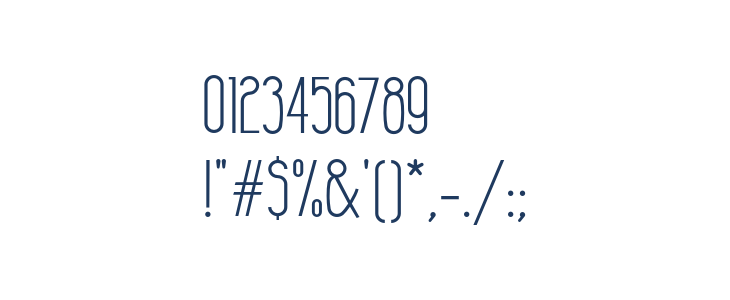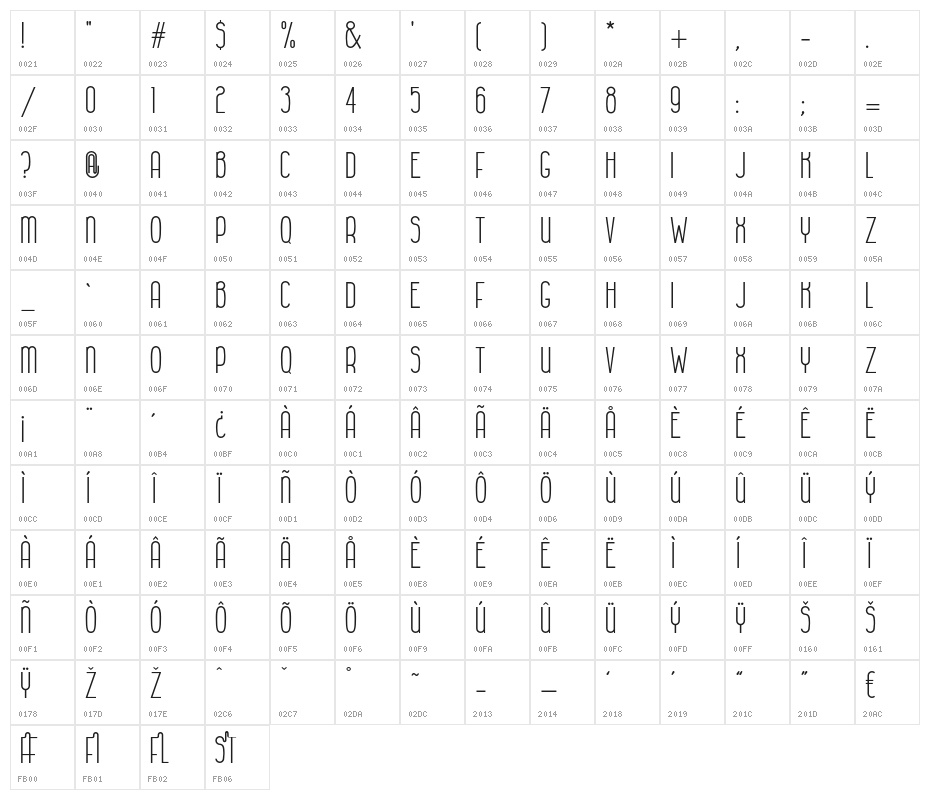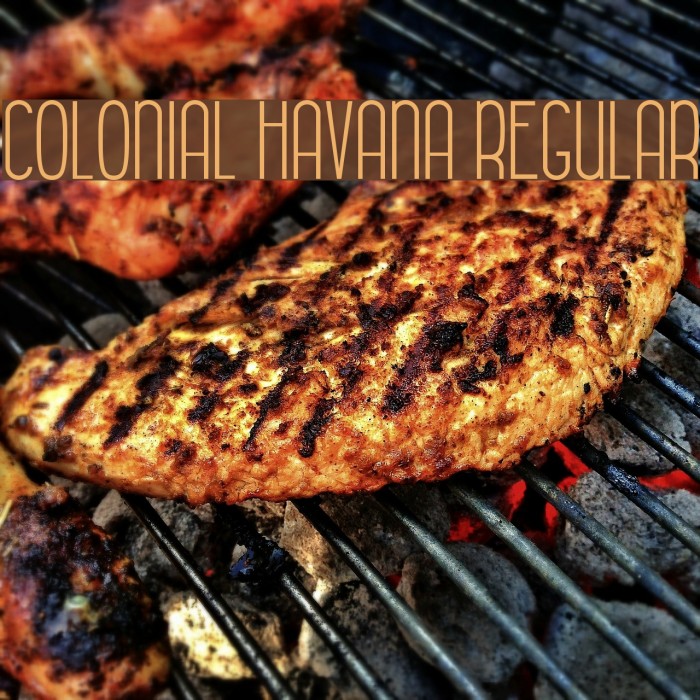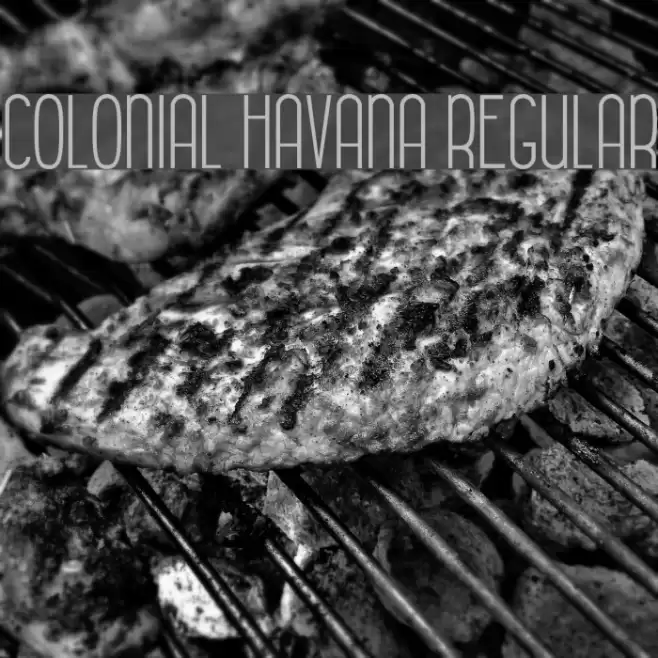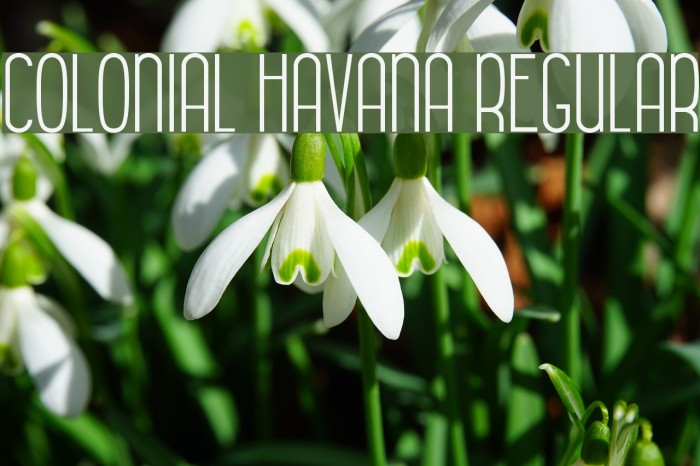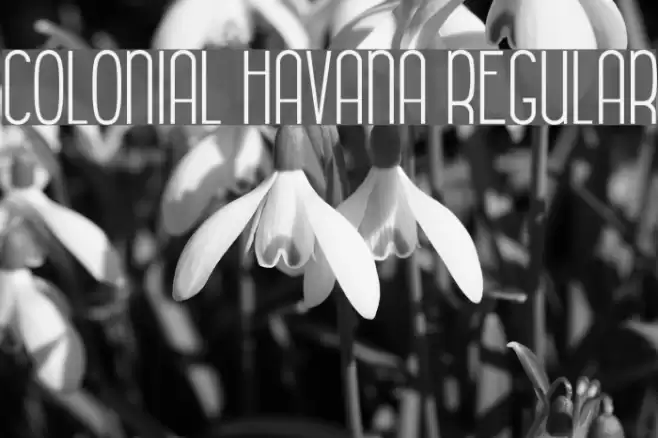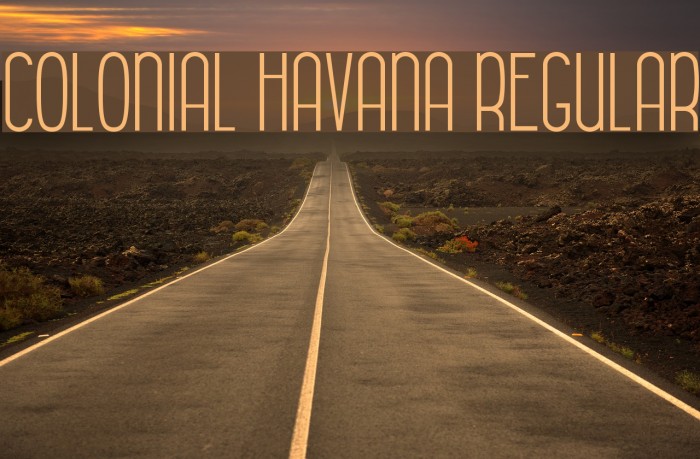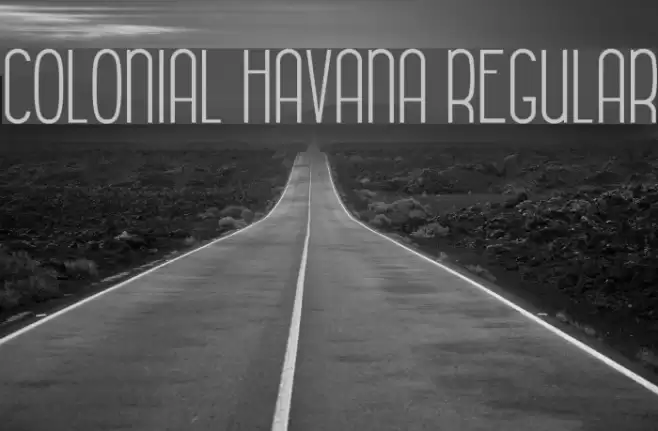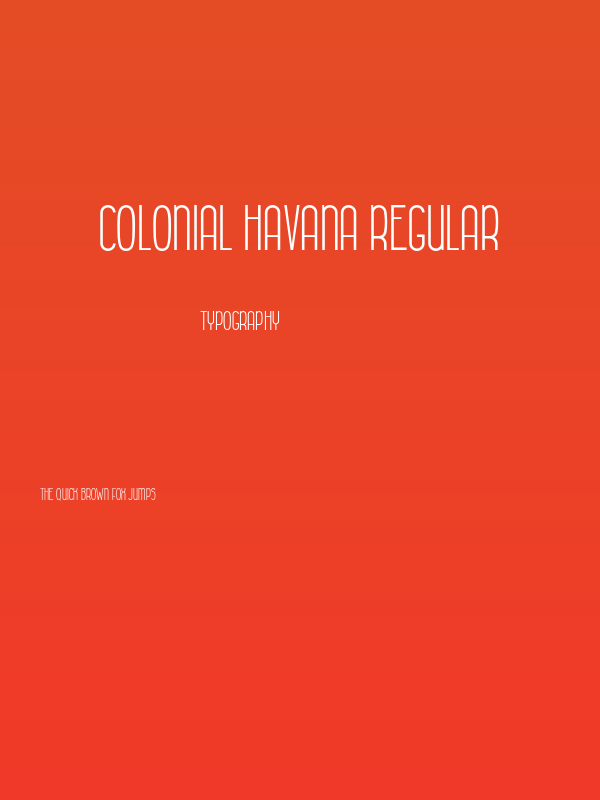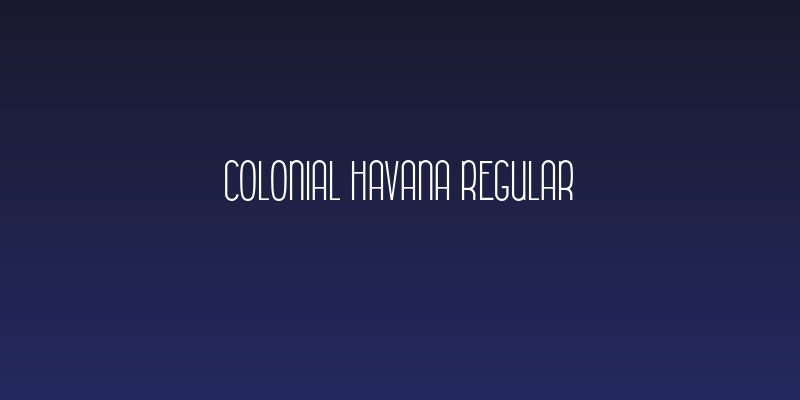
Colonial Havana Regular Font
Colonial Havana Regular Description
This font features a tall, narrow design with clean, straight lines and minimal curves, giving it a modern and sophisticated appearance. The characters are evenly spaced, contributing to a sleek and organized look. The uppercase and lowercase letters maintain a consistent height, enhancing readability while maintaining a stylish aesthetic. The numerals and special characters are designed to match the overall elegance of the font, making it versatile for various design needs. Its simplicity and clarity make it suitable for both digital and print media.
| Proposed Projects | Ideal for branding, editorial design, posters, and web design projects that require a modern and elegant touch. |